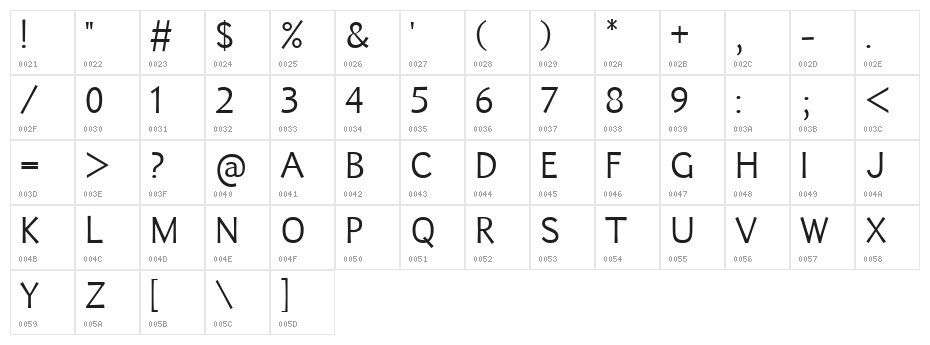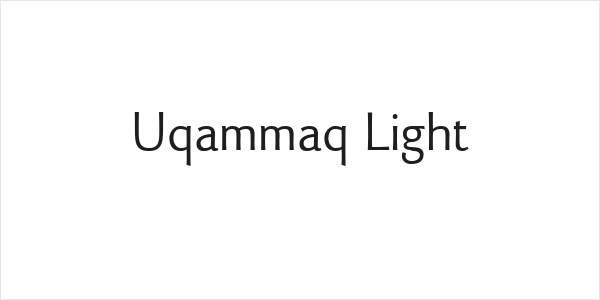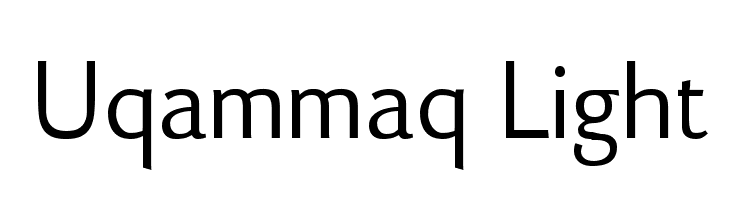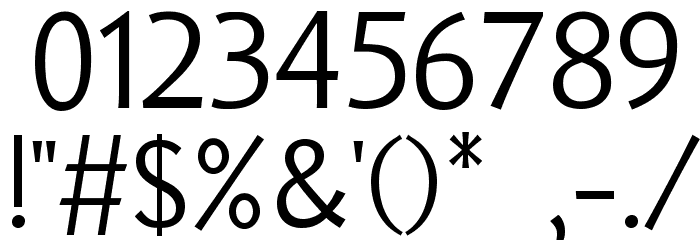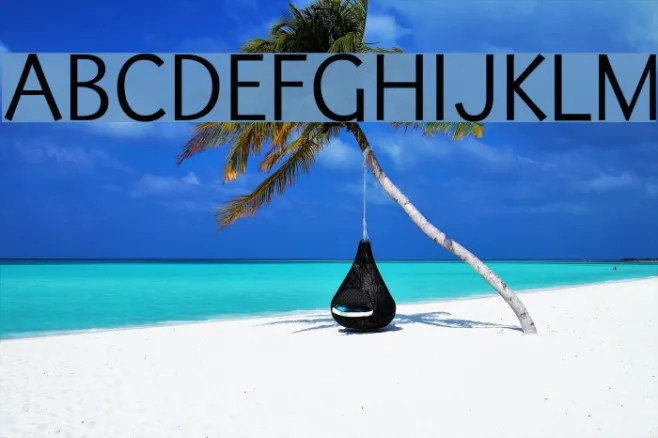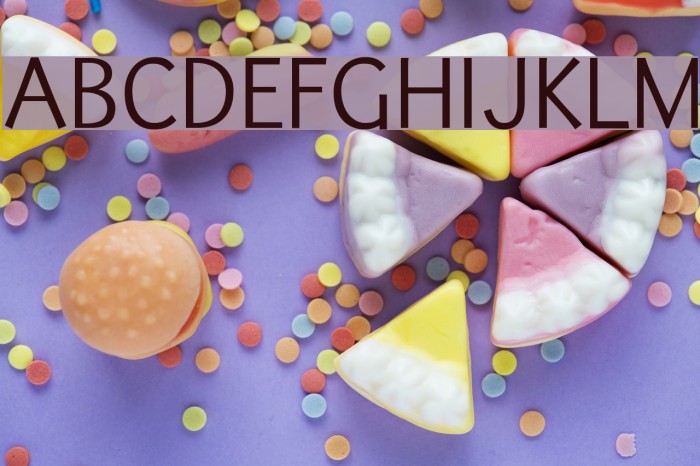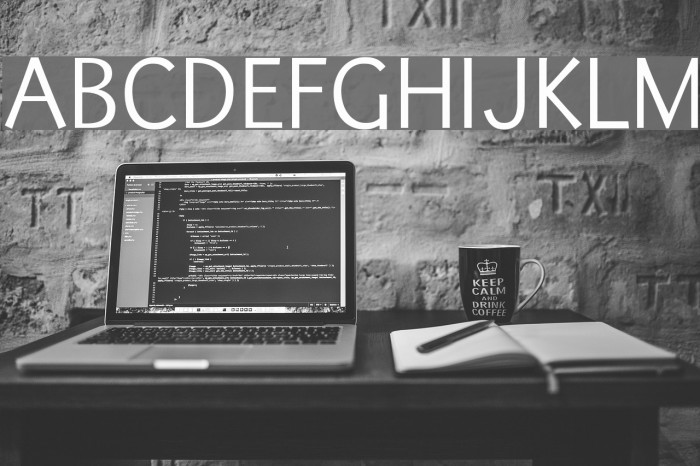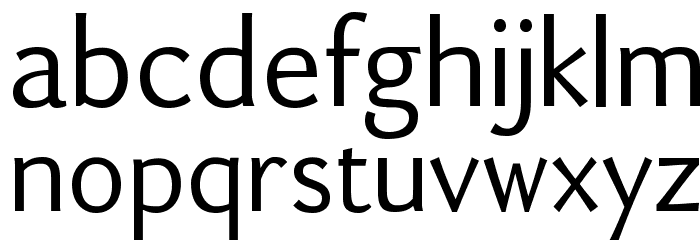
Uqammaq Light Font
Uqammaq Light Description
This font exhibits a clean and modern sans-serif style, characterized by its simplicity and clarity. The letterforms are well-proportioned with a consistent stroke width, providing a balanced and harmonious appearance. The uppercase and lowercase letters are distinct, with a slight geometric influence that enhances readability. The numerals are straightforward and align well with the overall design. Special characters are included, maintaining the font's cohesive look. This font is versatile, suitable for both digital and print media, offering a professional and contemporary aesthetic.
| Use Case | Headlines, Body text, Logos |
| Proposed Projects | Ideal for branding, web design, corporate materials, and editorial layouts. |